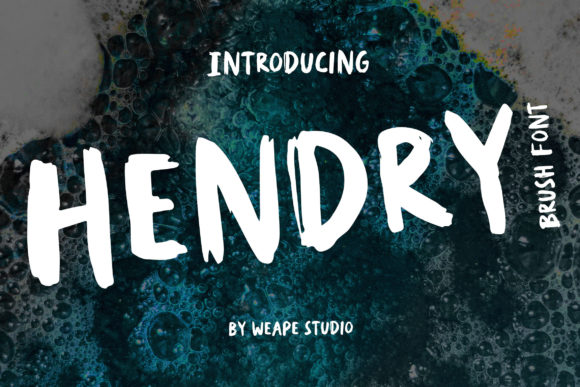
Behold, font enthusiasts and design visionaries, prepare to be enthralled by the enchanting Hendry Font, a display masterpiece brought to life by the artistic minds at Weape Design. This meticulously crafted font is more than just a collection of letters; it's an artistic expression that will transform your creative projects into captivating works of art.
Immerse yourself in the allure of Hendry, a brushed display font that dances across the page with an effortless grace and a touch of urban grit. Its bold strokes and dynamic curves create a visual feast that commands attention and leaves a lasting impression. Whether you're designing logos, posters, T-shirts, or coffee mugs, Hendry will elevate your designs with an air of sophistication and timeless elegance.
With Hendry as your artistic ally, you can effortlessly evoke a sense of nostalgia, authenticity, and craftsmanship. Its vintage charm adds a touch of history and warmth to any design, while its modern twist ensures that your creations stay relevant and captivating. Hendry is the perfect font for those who appreciate the finer things in life and seek to create designs that stand out from the crowd.
Unleash your creativity and explore the endless possibilities that Hendry Font offers. Its versatility knows no bounds, making it the ideal choice for a wide range of projects, from branding and marketing materials to social media graphics and website designs. Let Hendry be your secret weapon to leave a lasting impression and make your designs truly unforgettable.
Don't settle for ordinary fonts that blend into the background. Embrace the exceptional with Hendry Font. Add it to your collection today and embark on a creative journey where every design tells a story and captivates the hearts of your audience. Transform your ideas into masterpieces with Hendry Font, the ultimate expression of artistic brilliance.